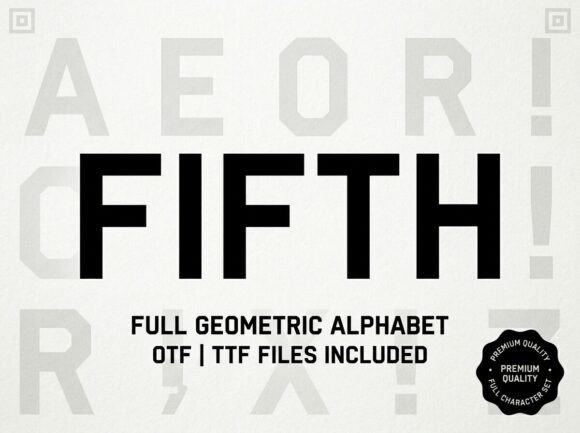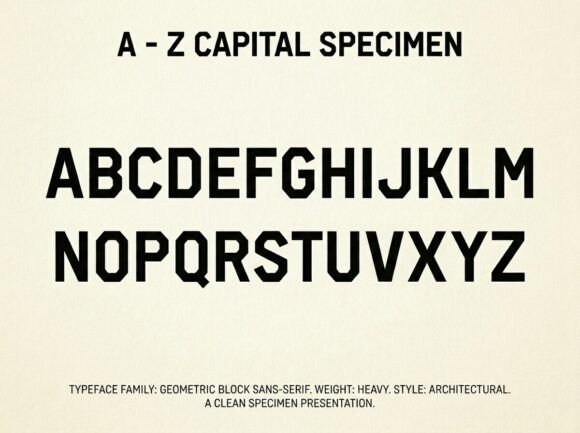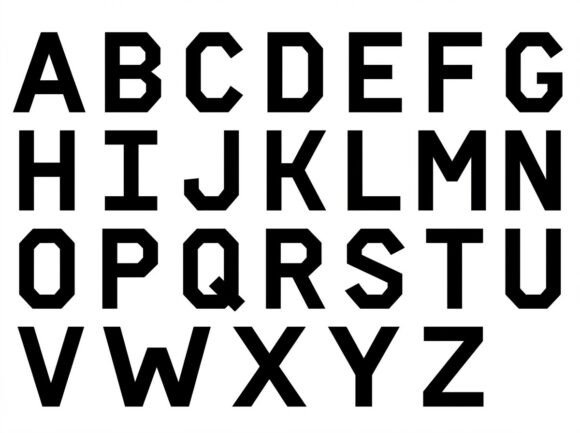
Introduction to Fifth Font
β€œThis font is a stunning decorative display font designed to be the center of attention.
Featuring unique artistic elements and a strong visual personality, this font is perfect for creators who want to break away from the ordinary This font is versatile enough for bold headlines, artistic logos, and creative packaging, while maintaining a professional and polished finish.
Key Features of Fifth Font
Why Choose Fifth Font?
Fifth Font offers exceptional quality and versatility, making it a valuable addition to your design toolkit. Whether you’re creating for personal projects or commercial use, Fifth Font delivers professional results.